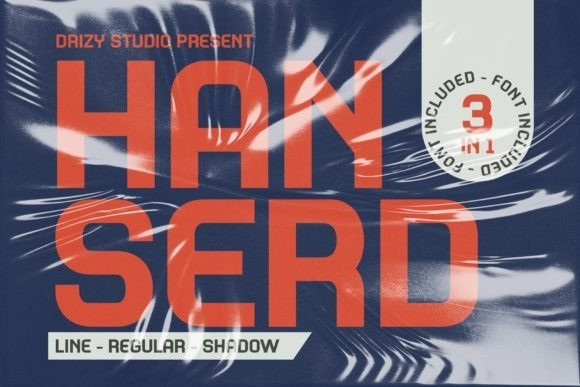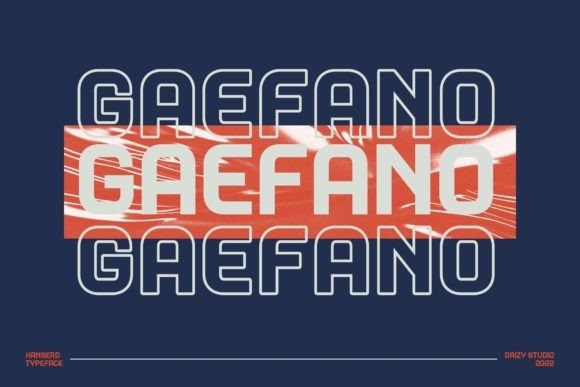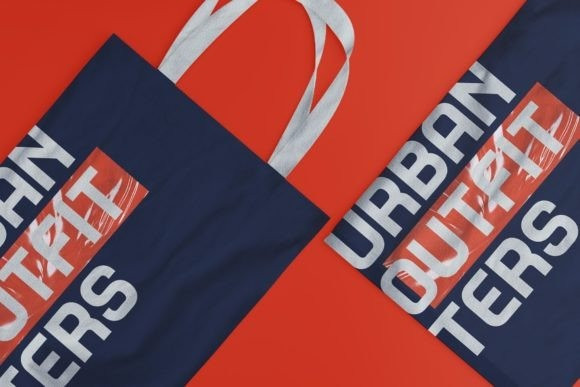
Hanserd Font
Hanserd font is a Line Regular Shadow Sans Serif font for a modern unique design look. Offers all the basic styles you will need for a successful project.